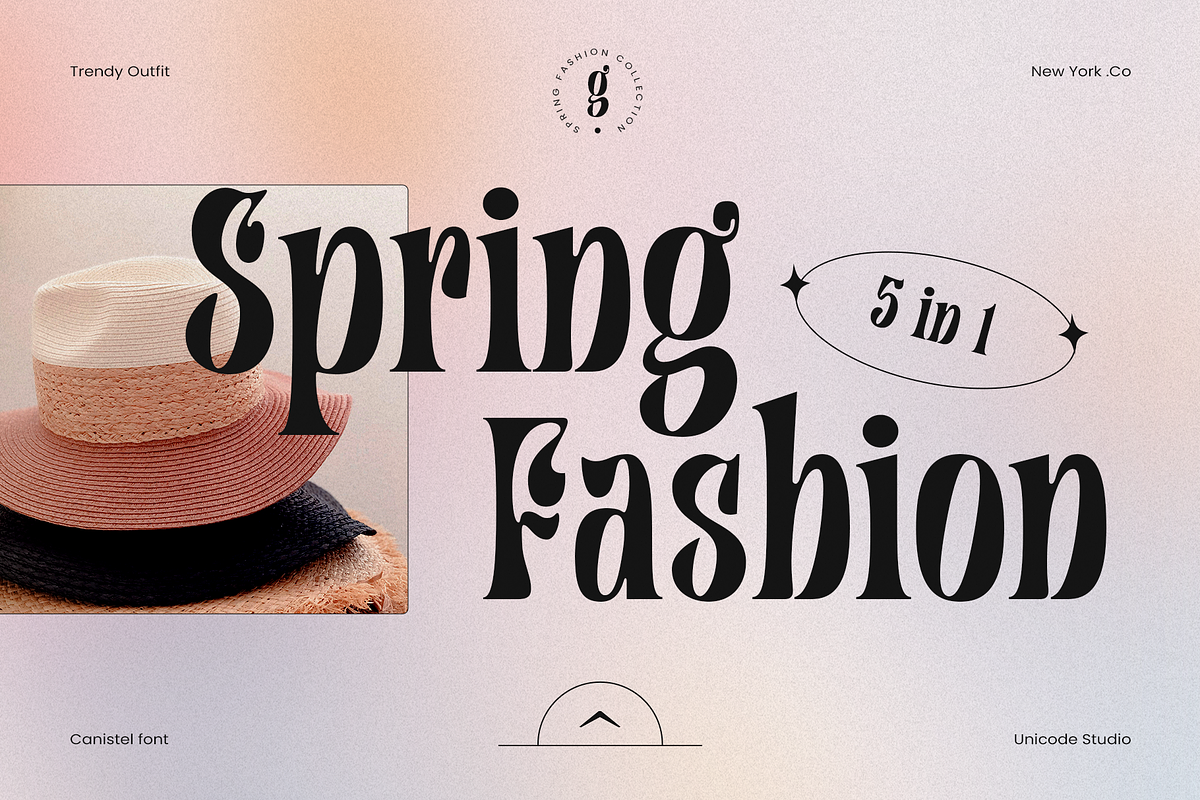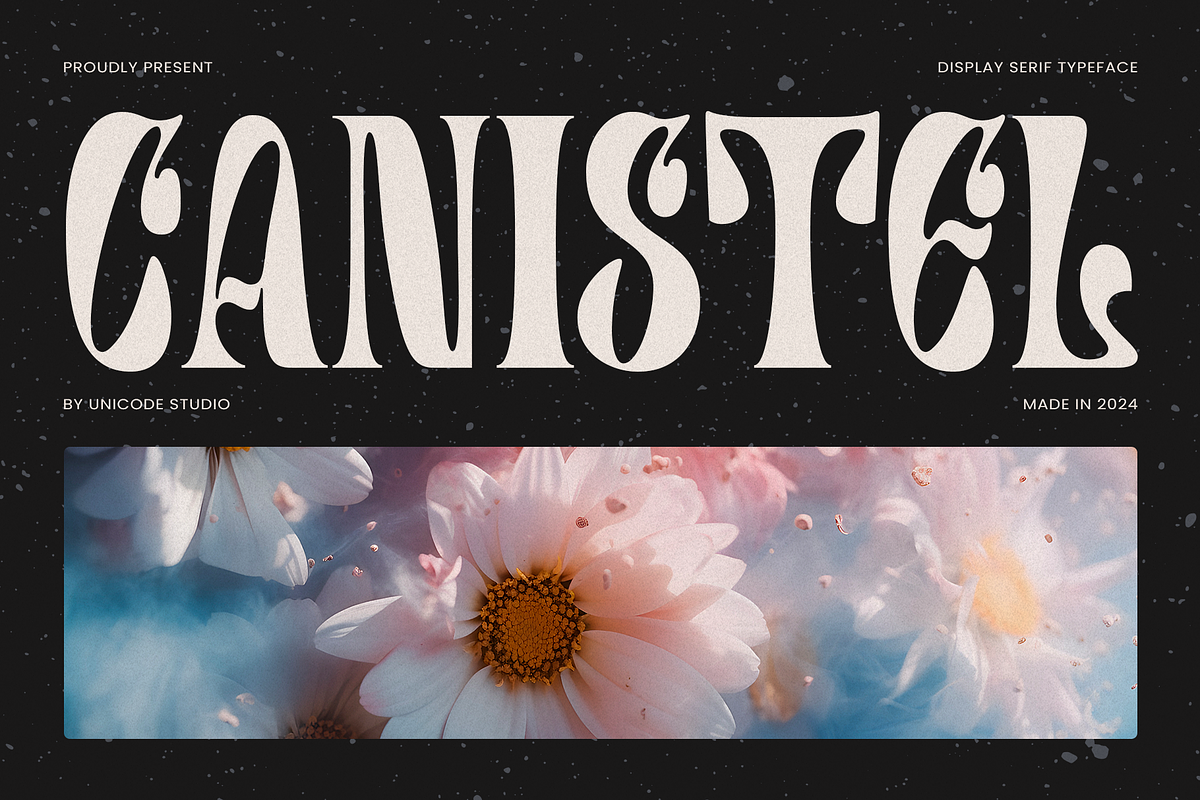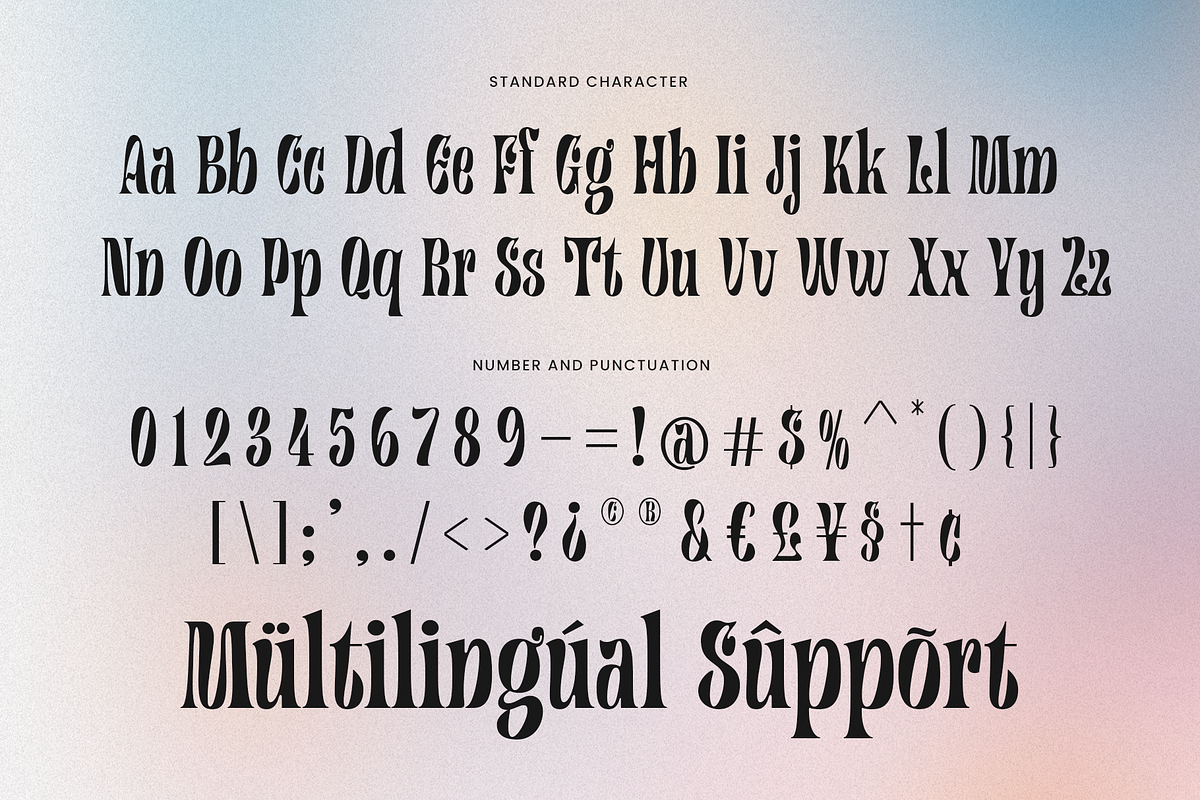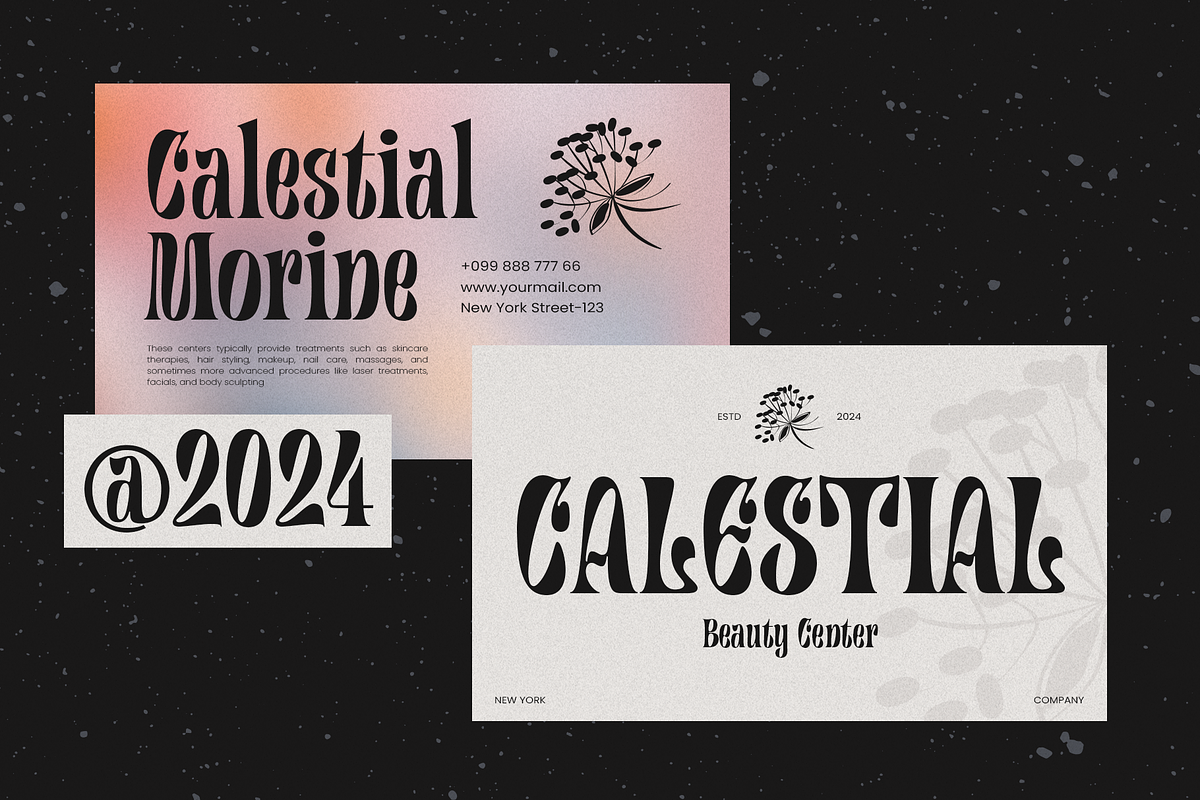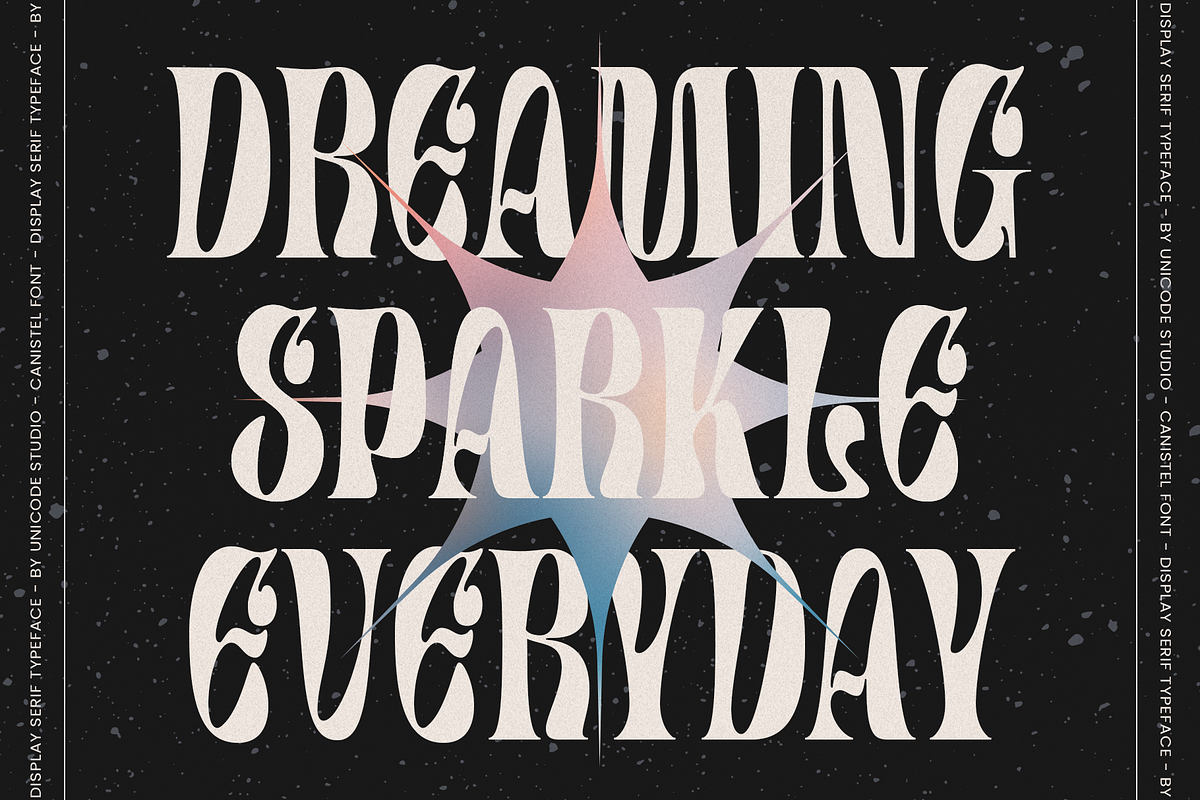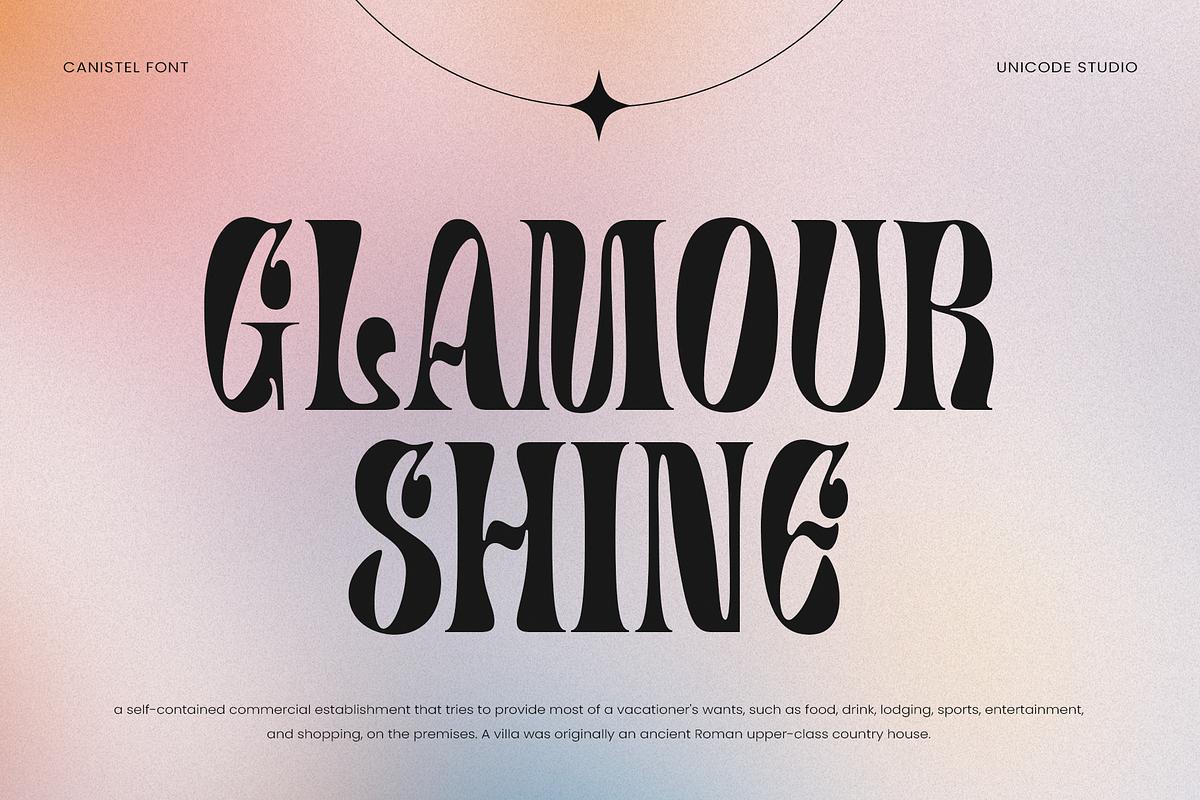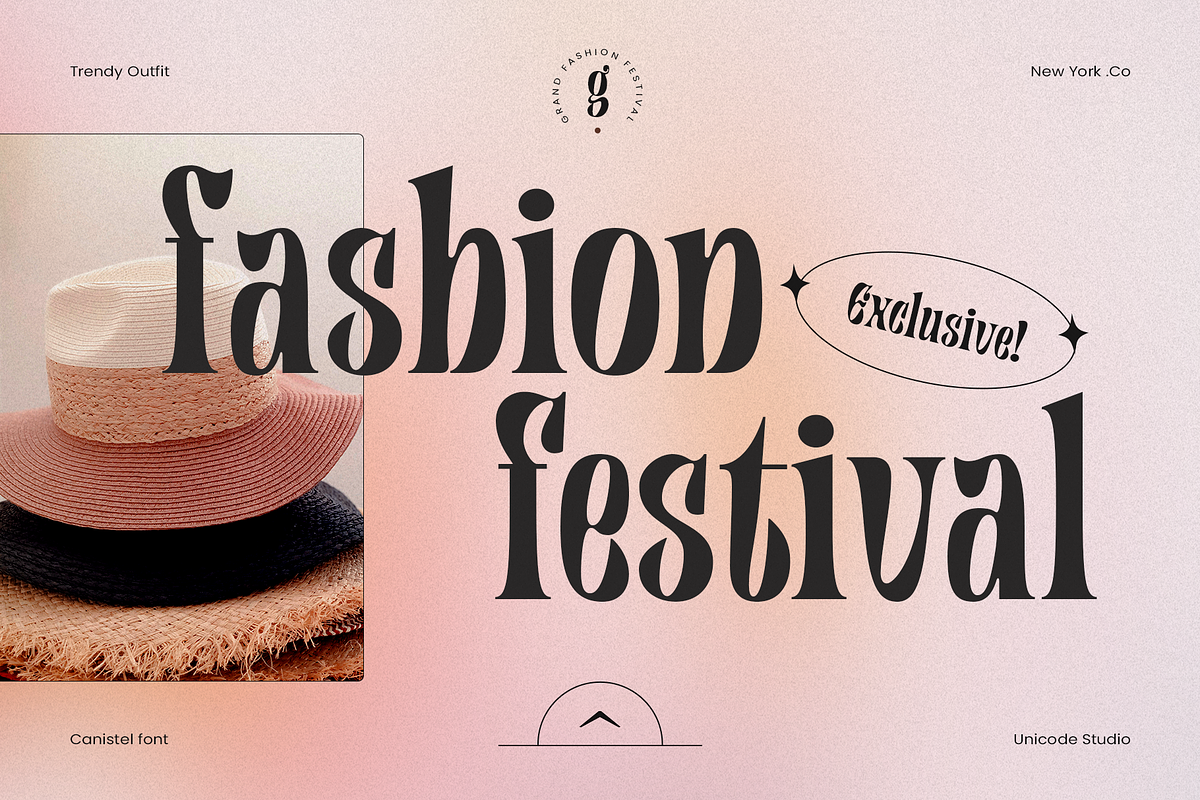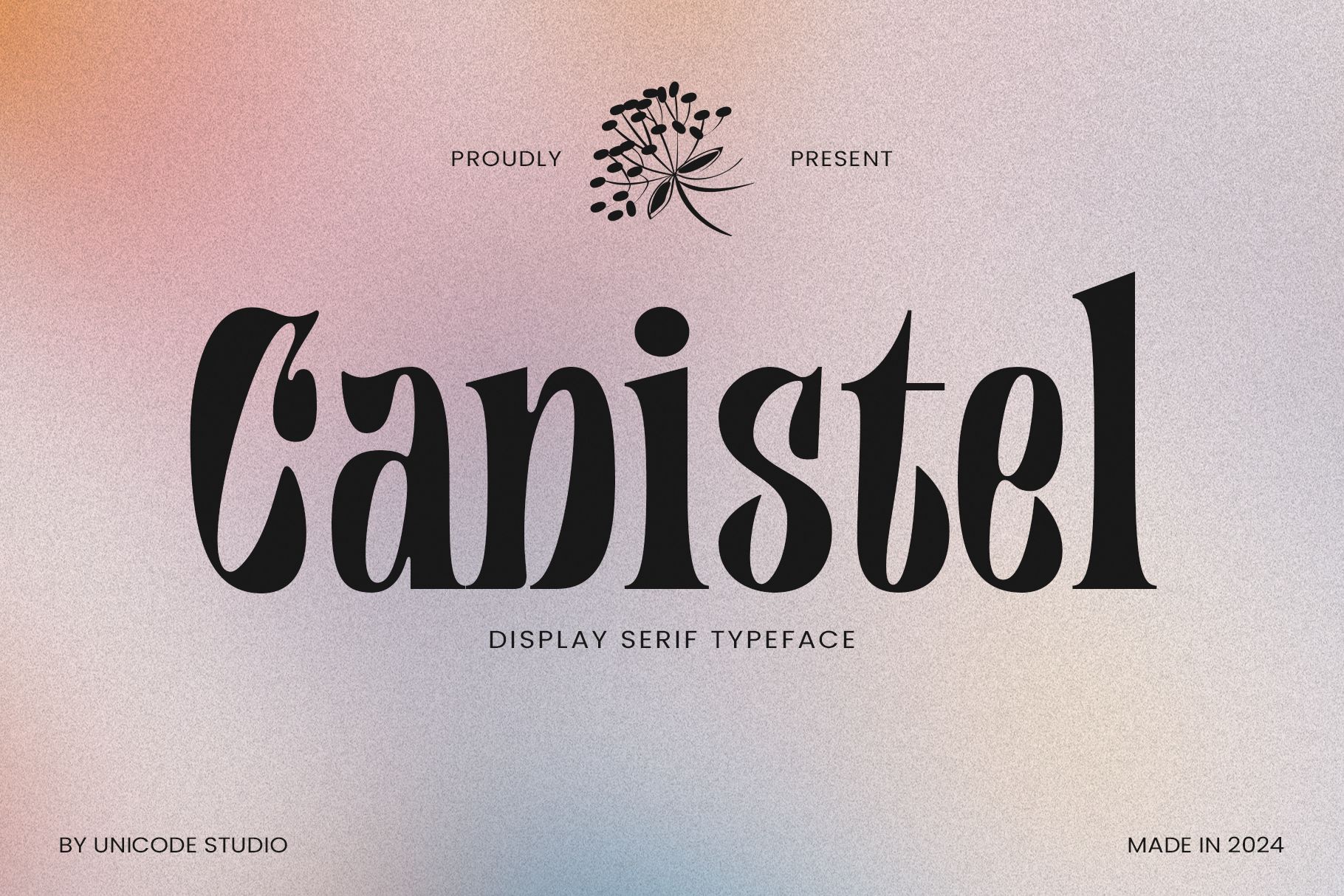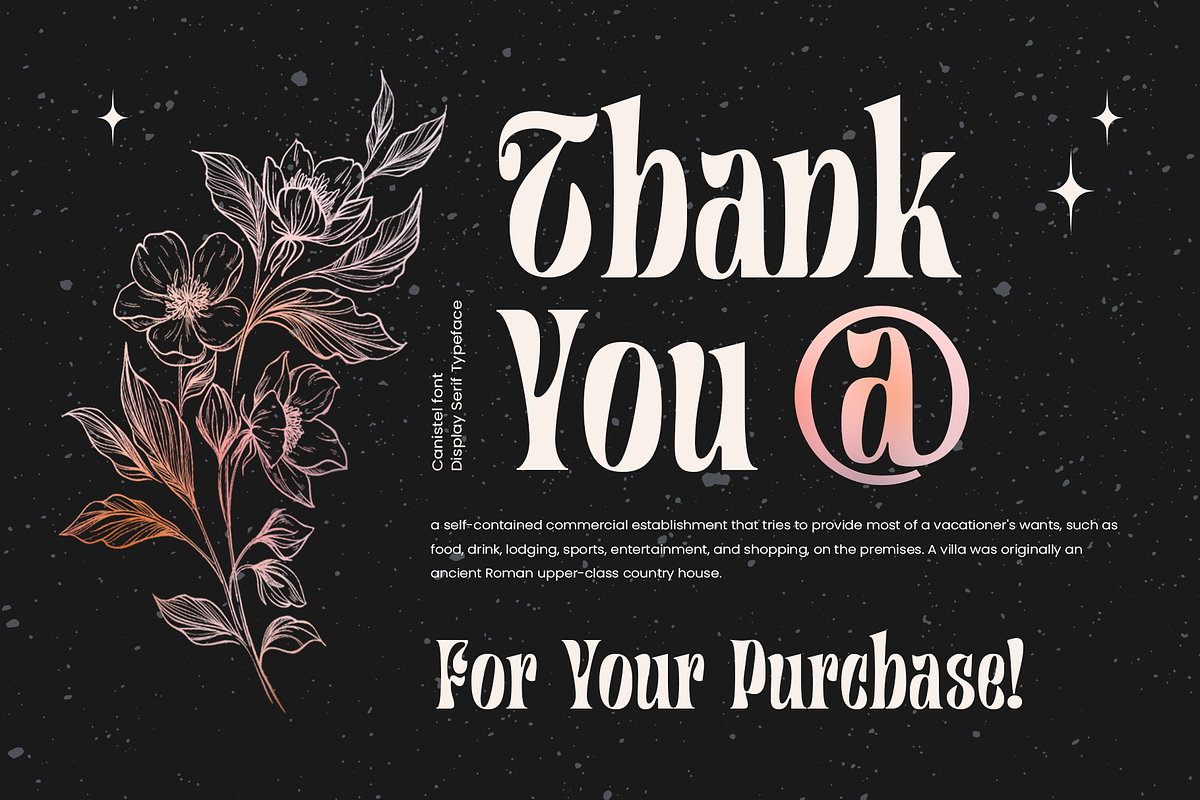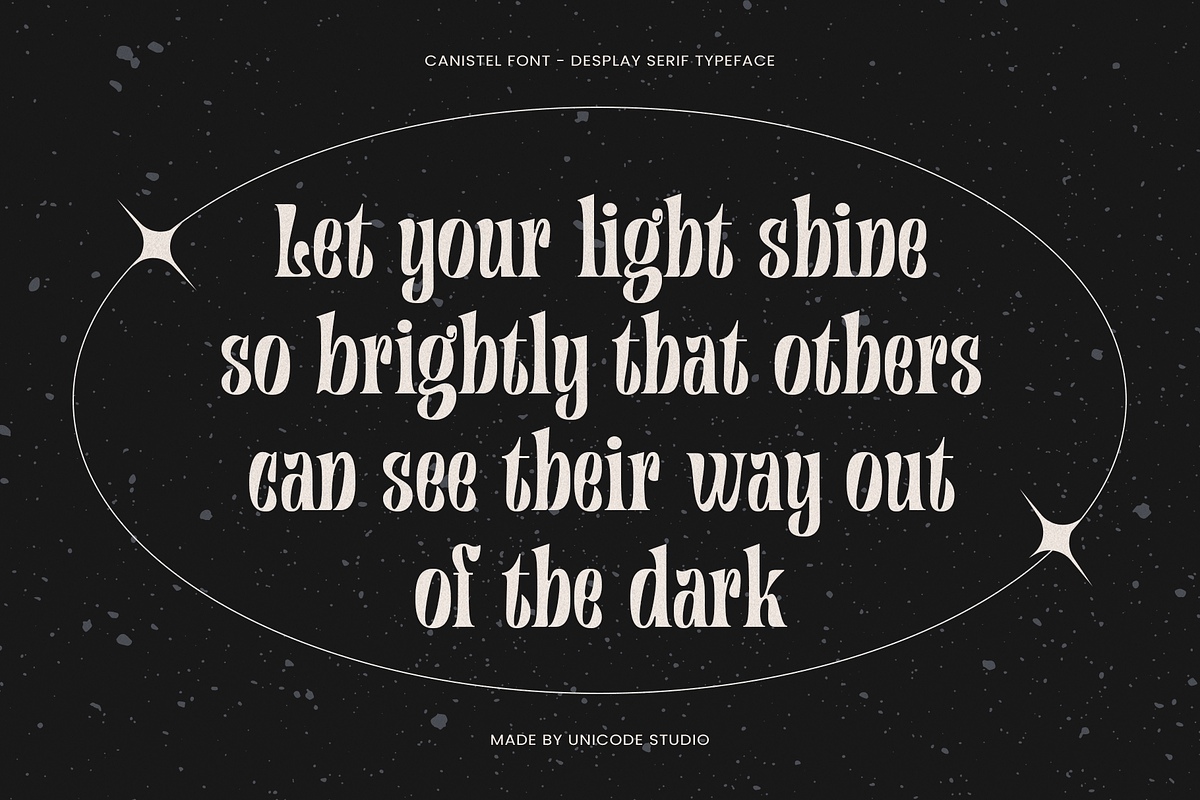
Canistel - Display Serif Font
Canistel font carries a classic and nostalgic feel and is also designed to attract attention at large sizes. It is usually used in headlines, posters, logos, branding, or designs that want to revive the atmosphere of the past but remain playful. This font tends to have unique, bold shapes and bold serifs and is experimental.
- International Symbols Support